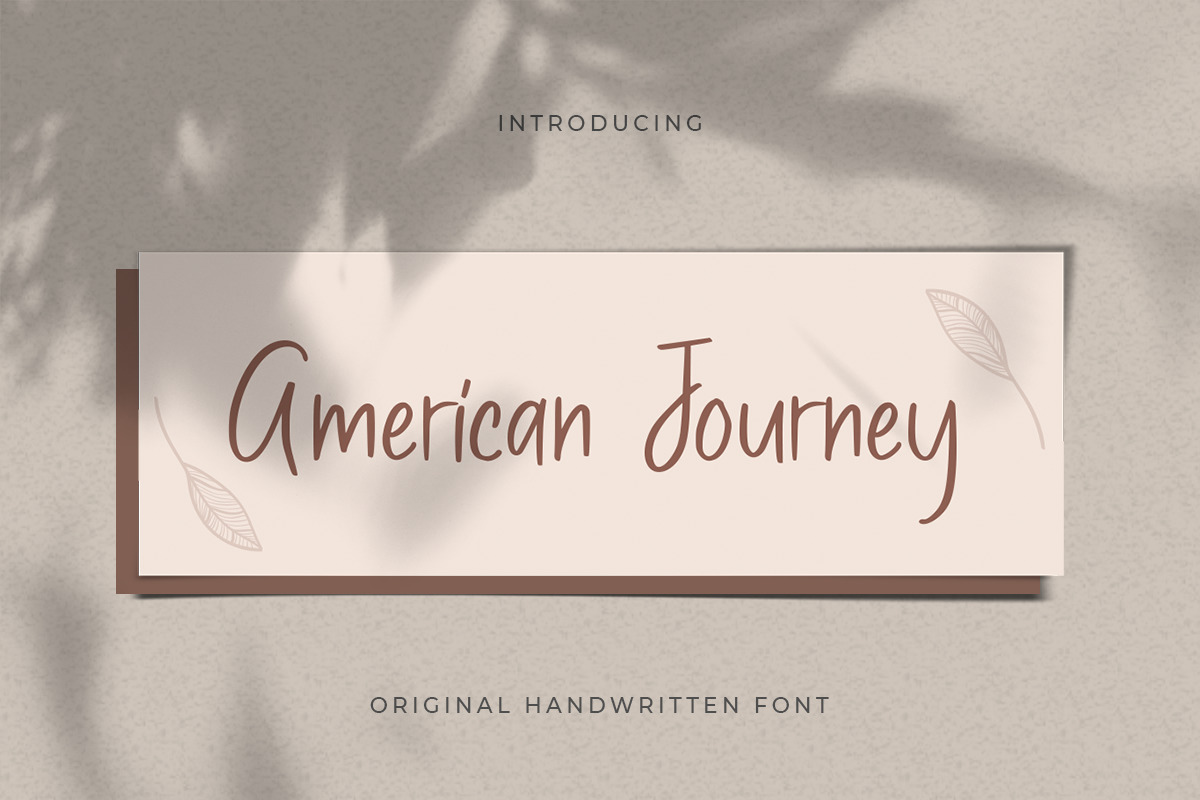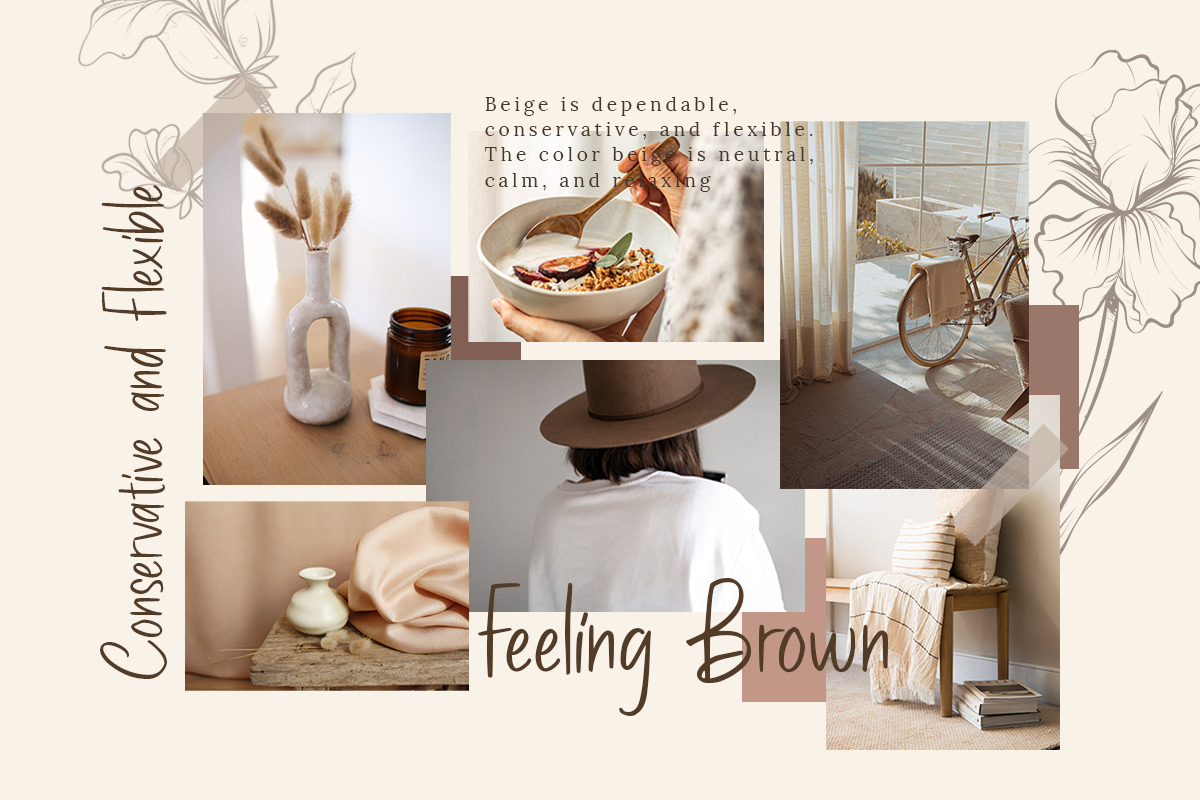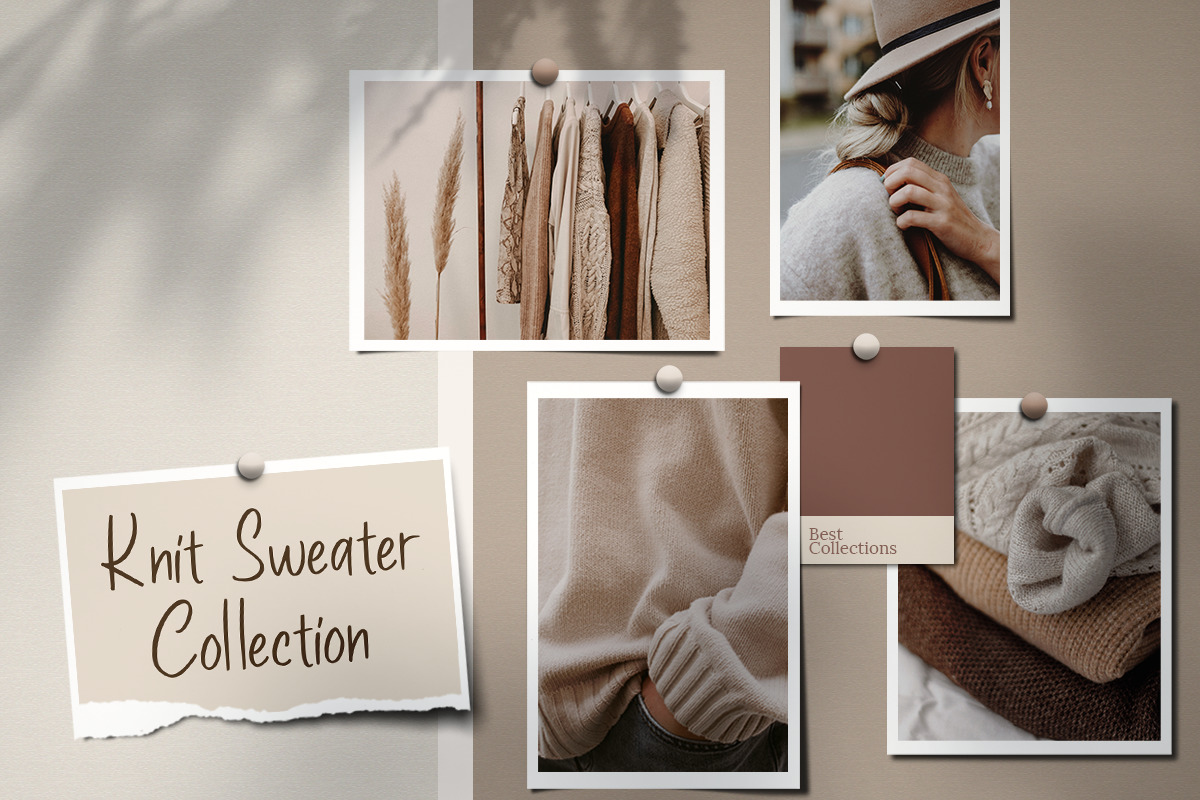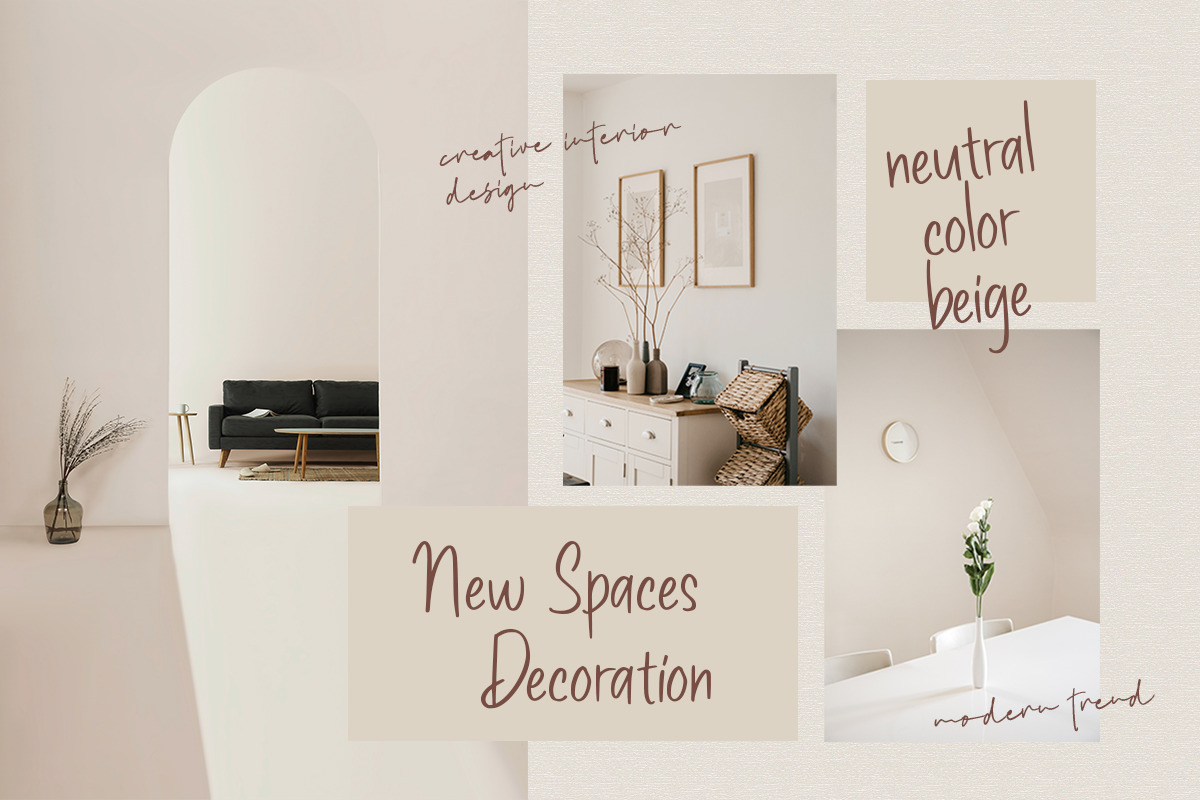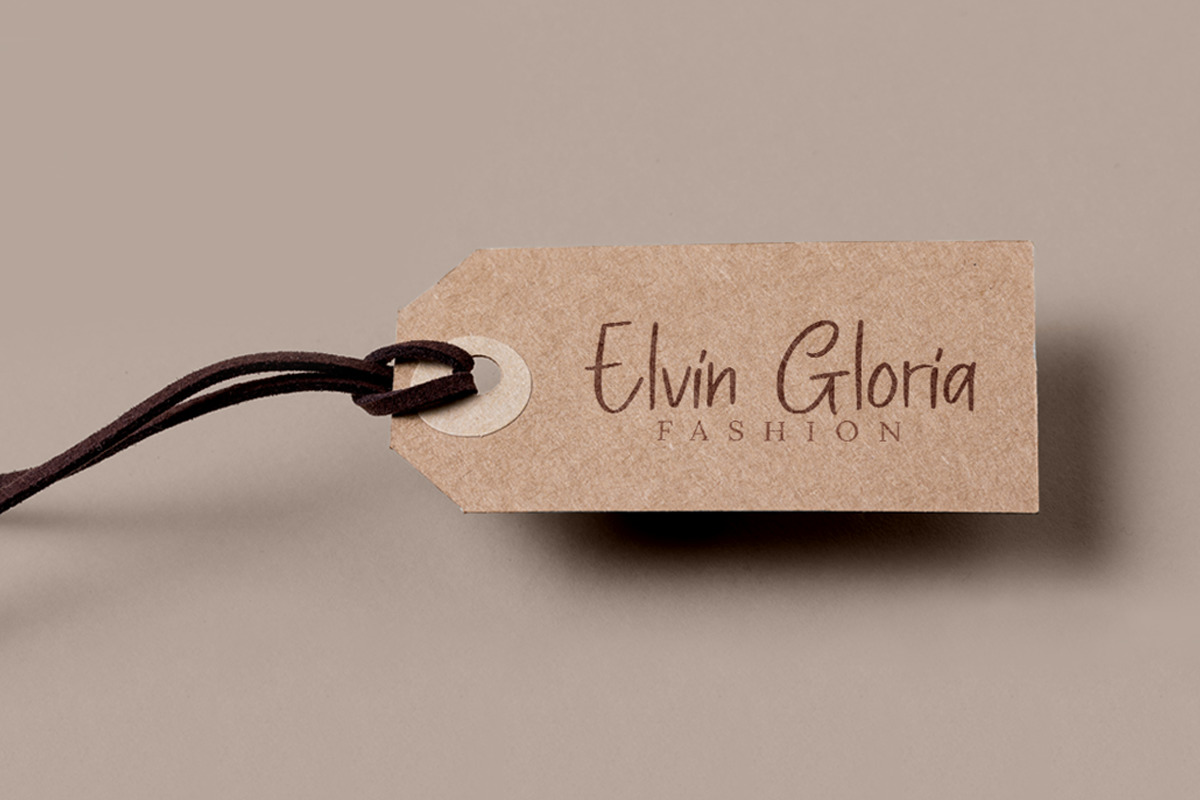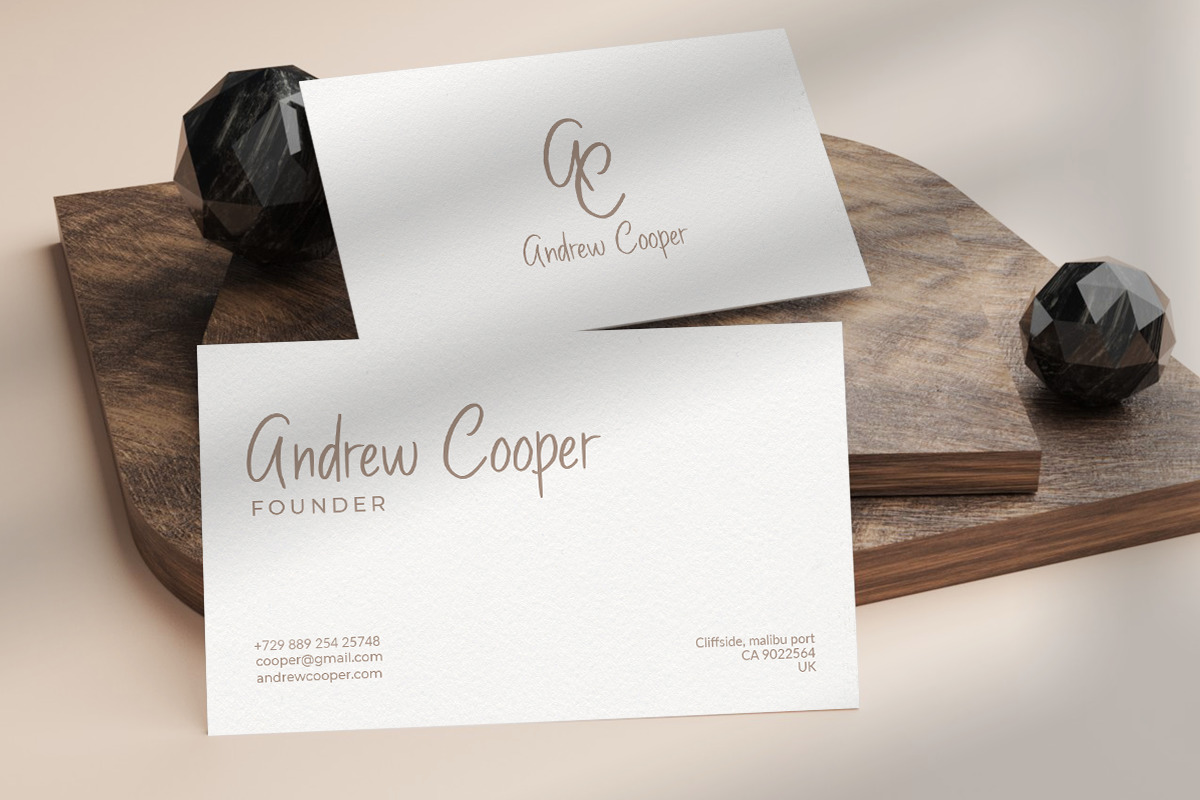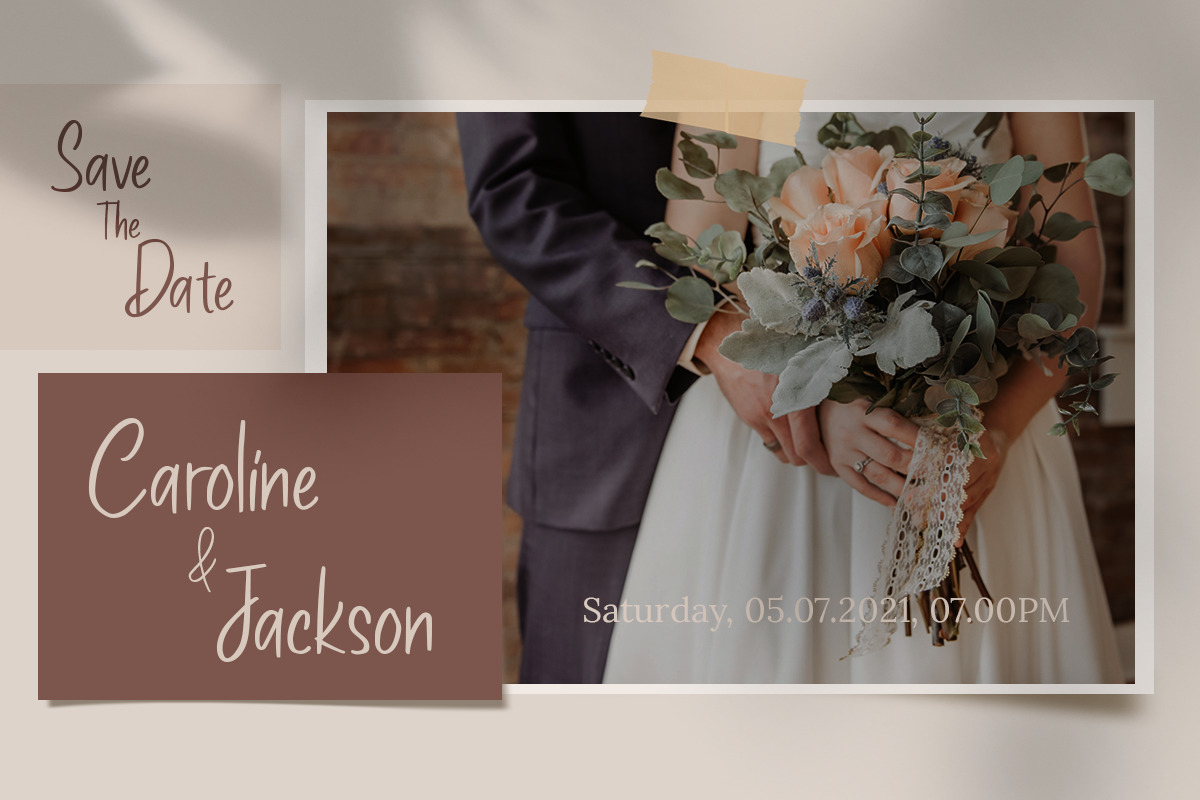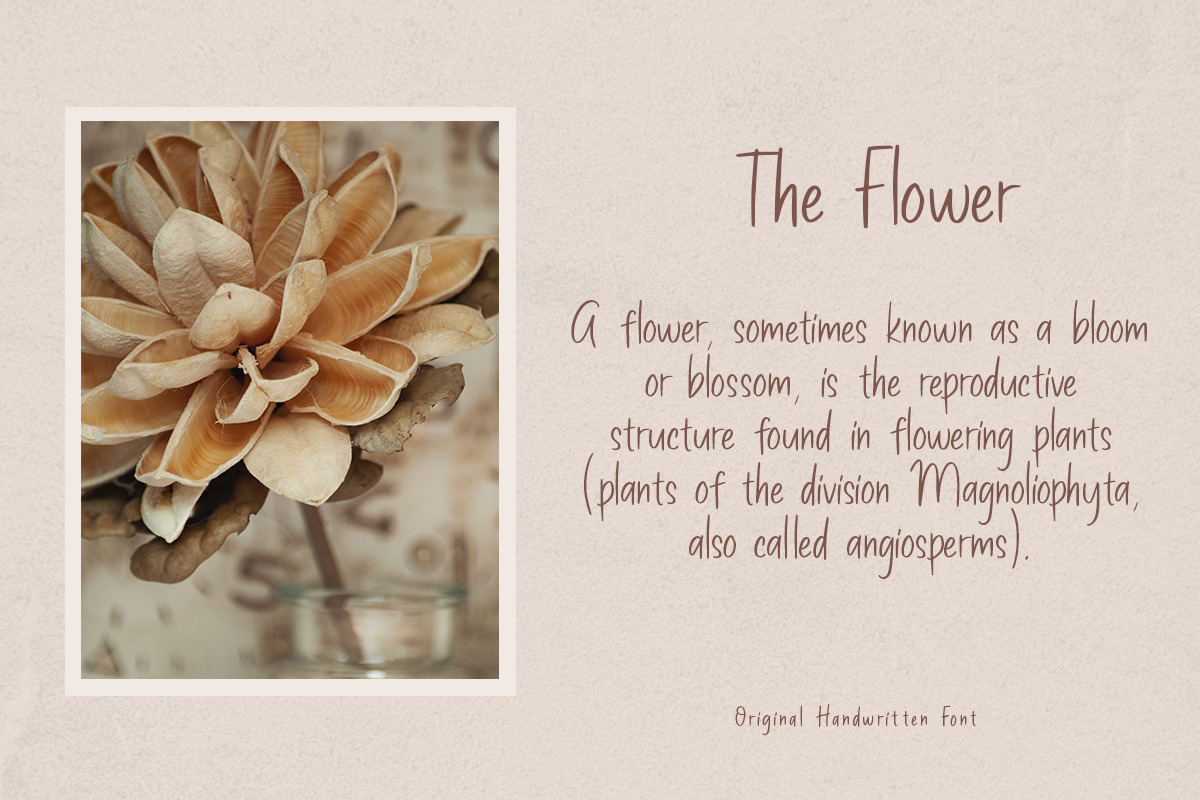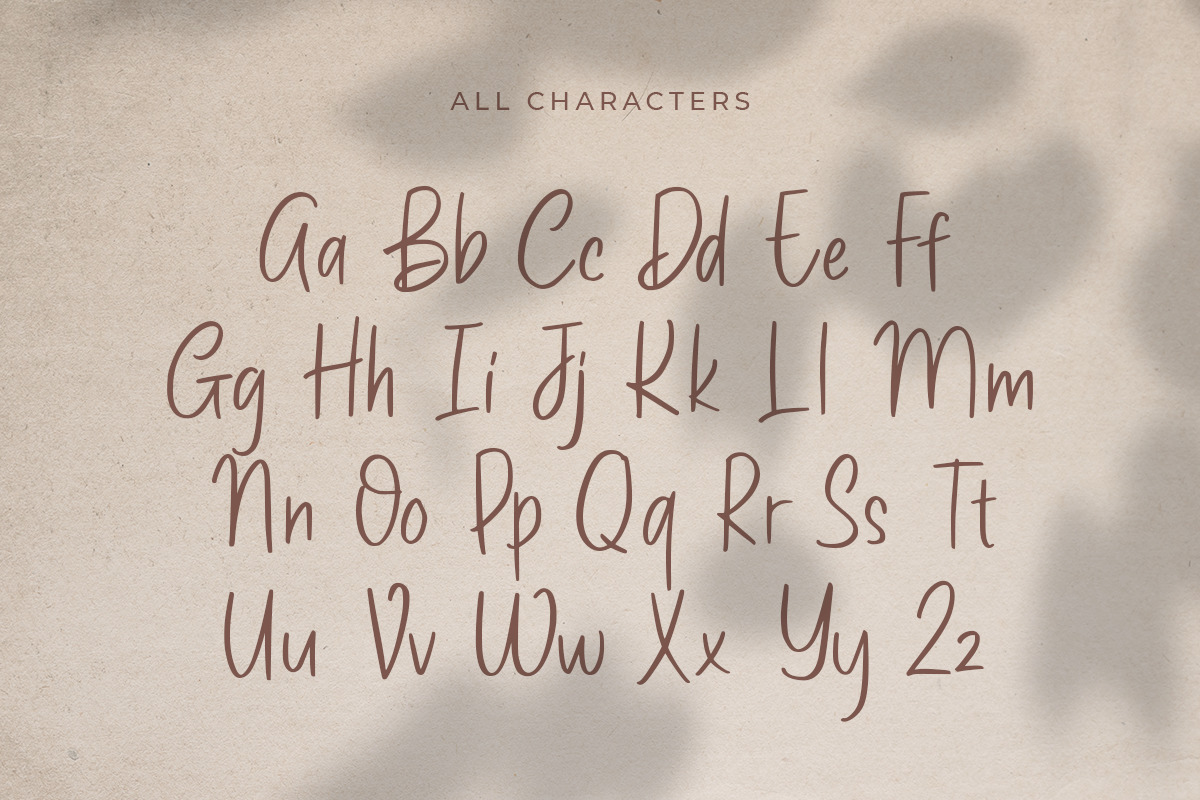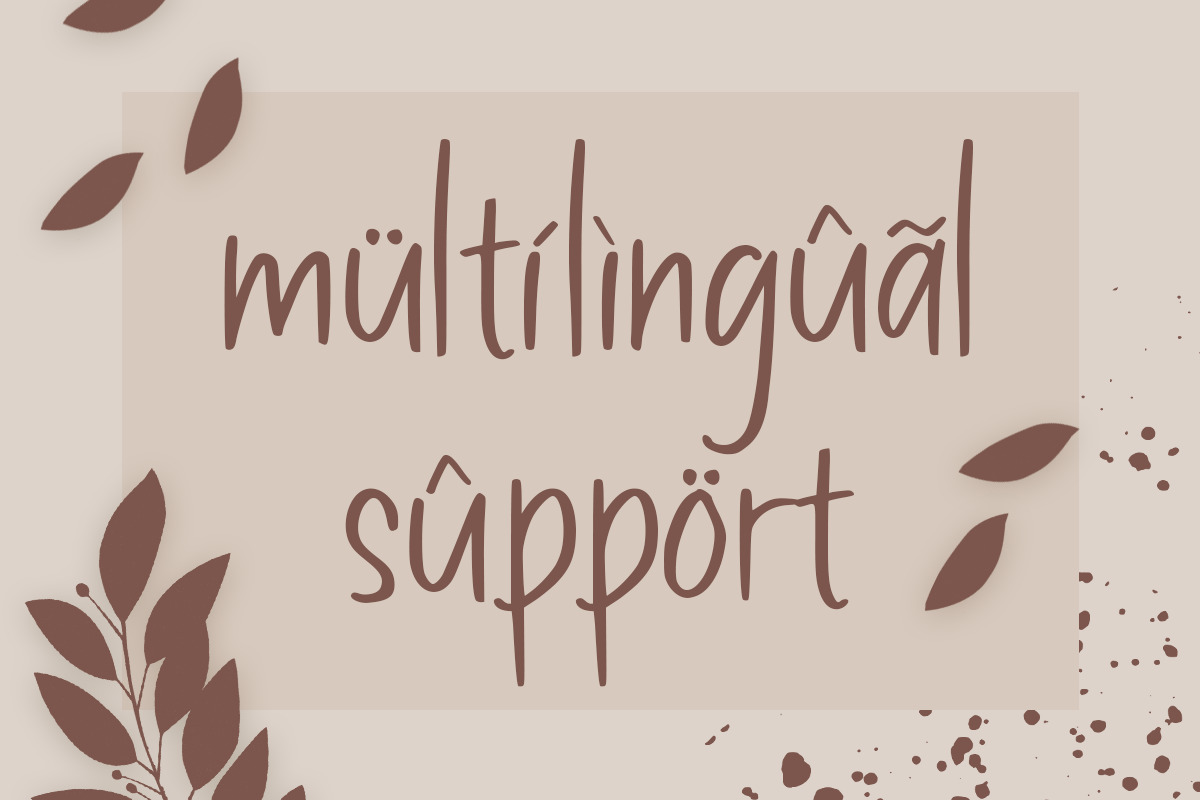
American Journey – Original Handwritten Font
American Journey – Original Handwritten Font. Inspired from beauty and feminine style very good for signature, stationery, logo, typography quotes, magazine or book cover, website needs.